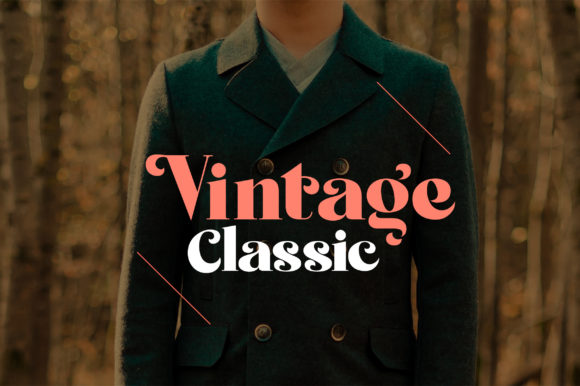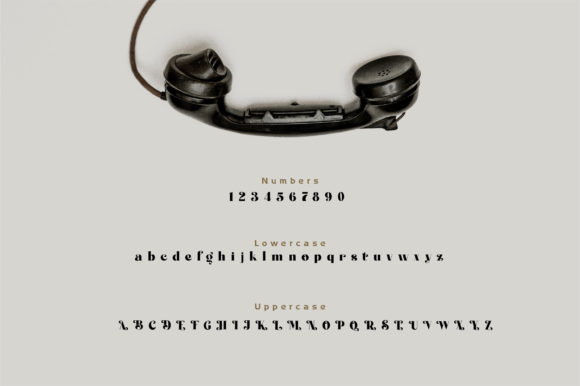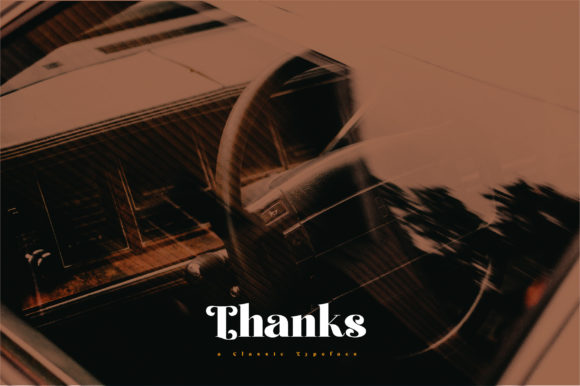
The Perfect Script for a Romantic Touch
You’ve finally landed that perfect brief – a wedding invitation, a love letter, or a heartwarming card for a special someone. The moment is right, and the emotions are high, but you need the perfect words to convey your feelings. That’s where the magic happens, and that’s where a beautiful font comes in – the Bergato Font.
This stylish, bold, and incredibly distinct serif font is designed to add a touch of romance to your next project. With its wide spectrum of applications, from greeting cards to headlines, Bergato Font is the perfect choice for designers looking to create something truly special. Its unique style and versatility make it a valuable asset in any designer’s toolkit, and its romantic feel is guaranteed to leave a lasting impression on your audience.
Bergato Font Key Features
- Unique Characteristics: Ergonomic design with a focus on readability, featuring a distinctive italic style and a wide range of language support
- Font Style: Available in Regular, Italic, Bold, and Bold Italic styles
Bergato Font Review
I recently had the chance to work with the Bergato font, and I must say it’s a unique and stylish choice. ✨ One of the things that works well is its versatility – it can be used for both serif and sans-serif designs, depending on the font style you choose. The font is also highly customizable, with various weight and width options available.
Another thing that caught my attention is the extensive language support offered by Bergato. ✨ This makes it an excellent choice for designers who need to create content in multiple languages. Additionally, the font is highly legible, even at small font sizes, making it perfect for digital designs.
- ⚠️ The font may not be suitable for extremely formal or traditional designs, as its modern and sleek style may not fit the tone.
- ⚠️ Some users may find the font’s bold and condensed styles a bit overwhelming, especially in large quantities.
Overall, I’m quite impressed with the Bergato font. It’s a solid choice for designers who want a modern and stylish font that’s also highly customizable and legible. While it may not be suitable for every design project, it’s definitely worth considering for those who want to add a touch of sophistication to their work.
Use the Bergato font for creative and artistic projects, such as:
– Invitations and event branding
– Social media graphics and ads
– Brochures and flyers
For the best results, use the Bergato font in conjunction with bold and colorful graphics to create eye-catching designs.
Comparison to Bergato Font: Lato Font has a more geometric and clean design compared to Bergato Font, which has a more rounded and elegant look. While both fonts are modern, Lato Font is more suitable for digital applications, whereas Bergato Font is better suited for print materials.
Comparison to Bergato Font: Montserrat Font has a more industrial and geometric design compared to Bergato Font, which has a more elegant and rounded look. While both fonts are modern, Montserrat Font is more suitable for digital applications, whereas Bergato Font is better suited for print materials.
Q: What is the recommended font size for using Bergato Font?
The recommended font size for using Bergato Font is between 12pt and 24pt. However, this can vary depending on the specific use case and personal preference. For optimal readability, we recommend using a font size between 14pt and 18pt for body text and larger sizes for headings and titles.